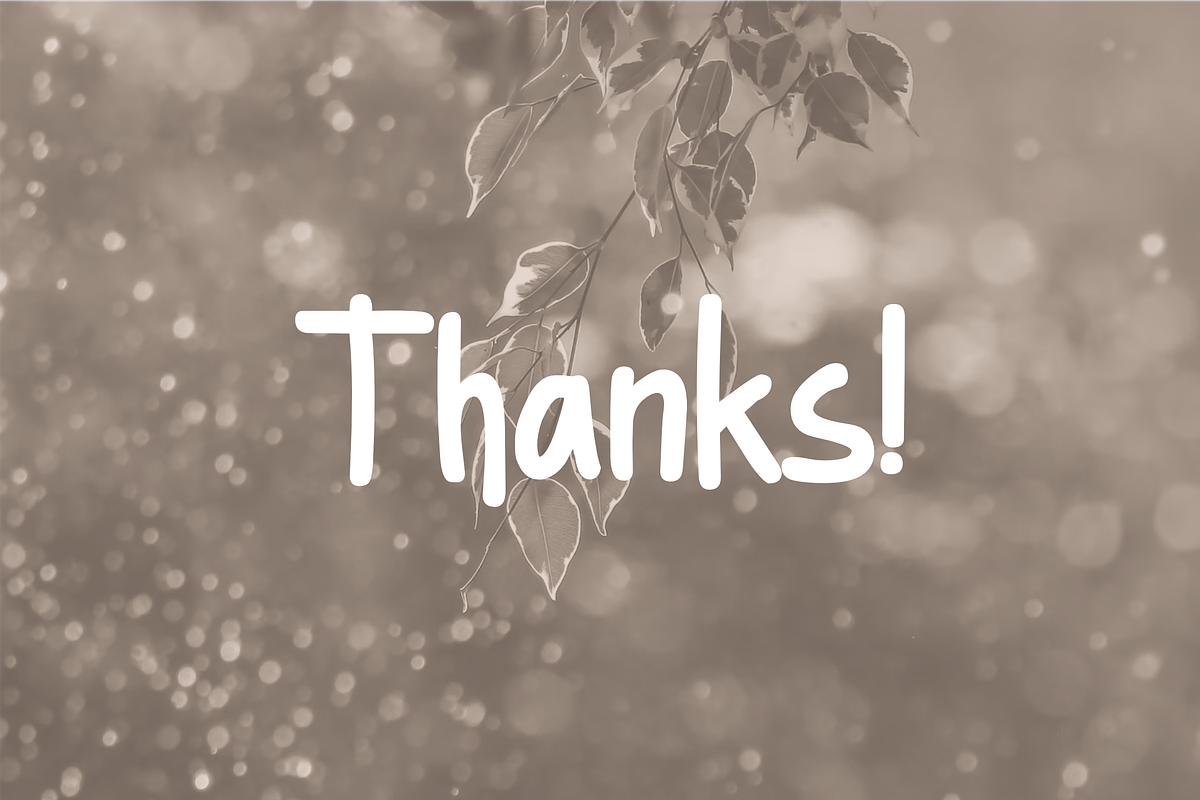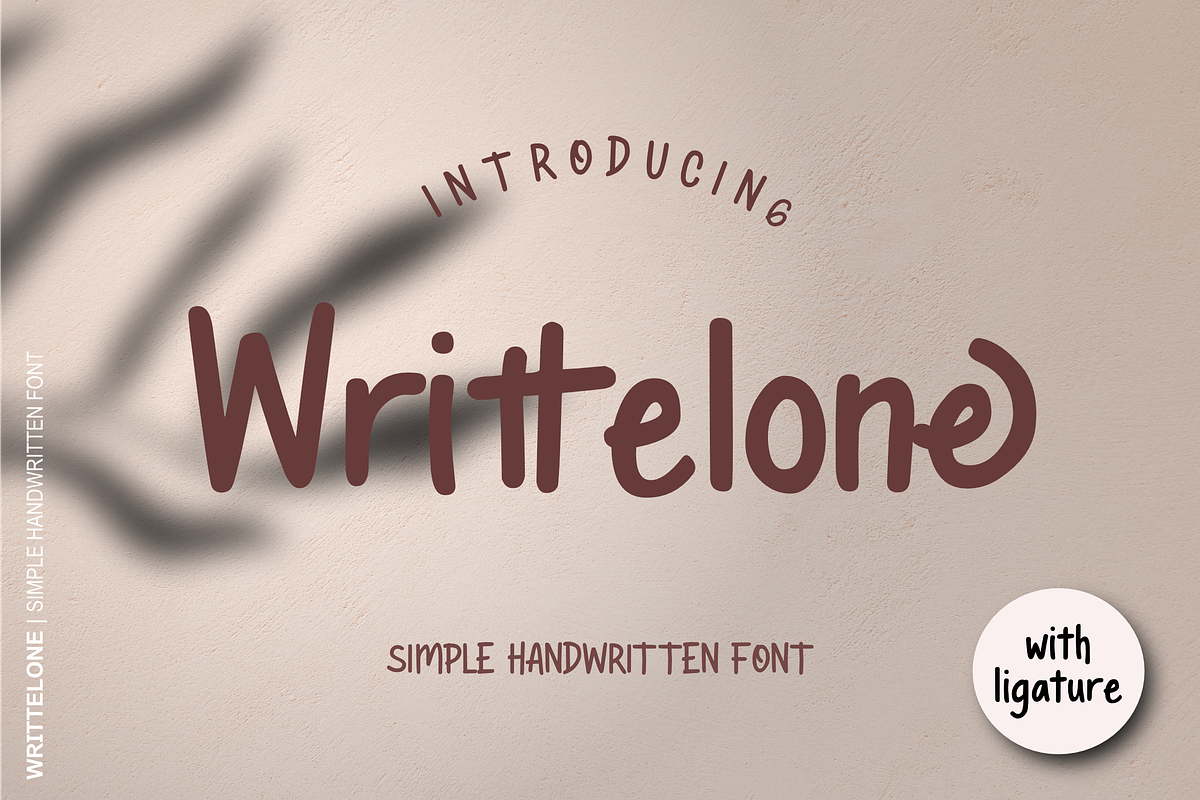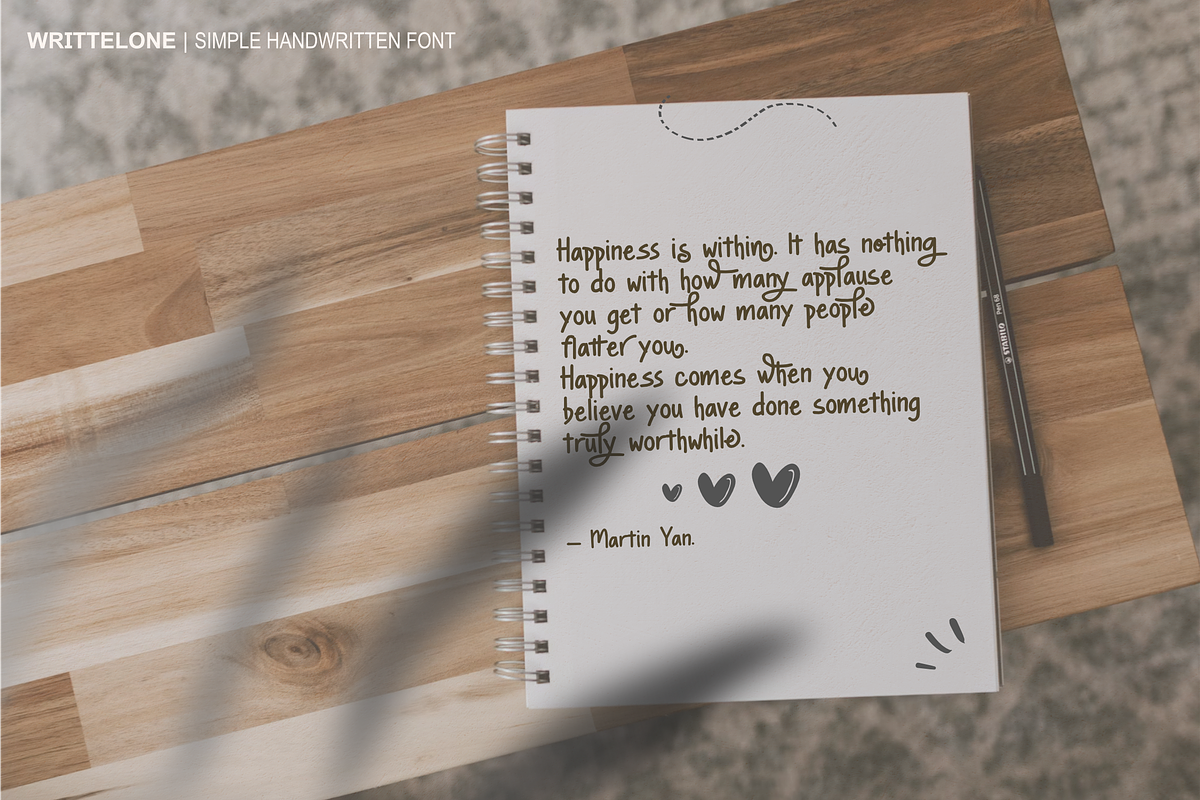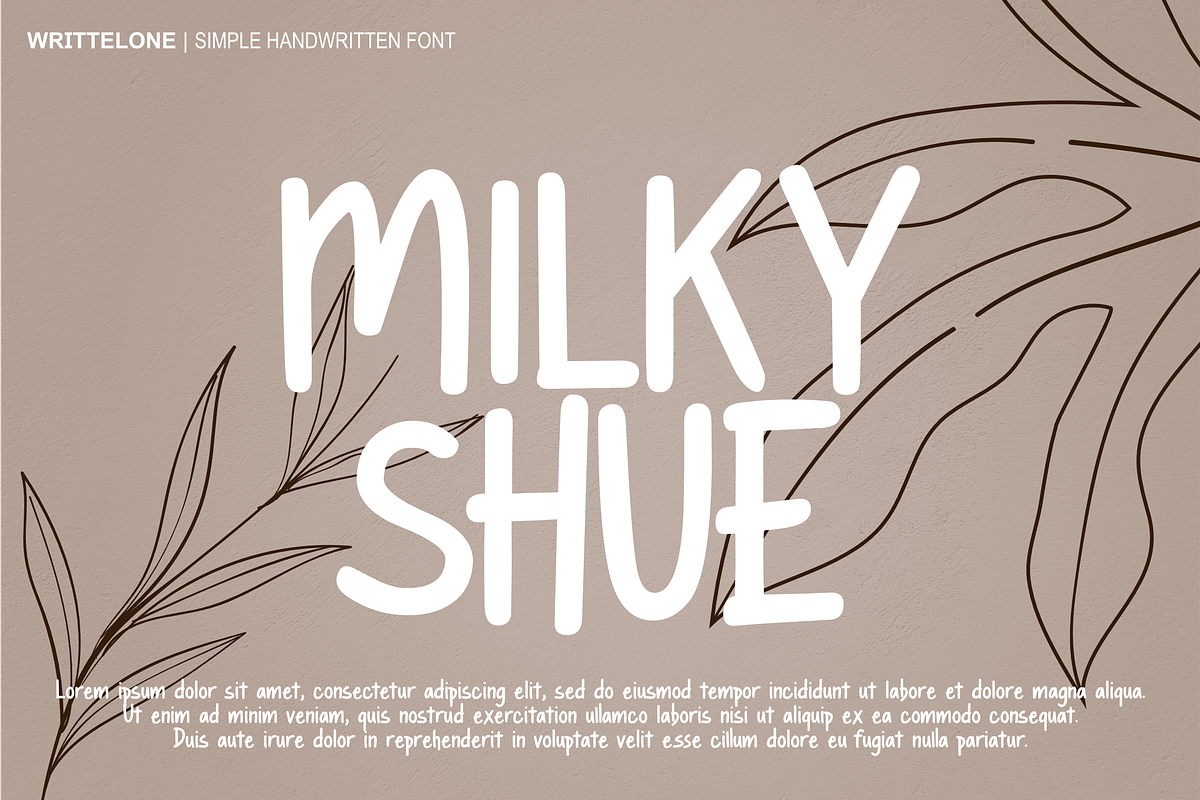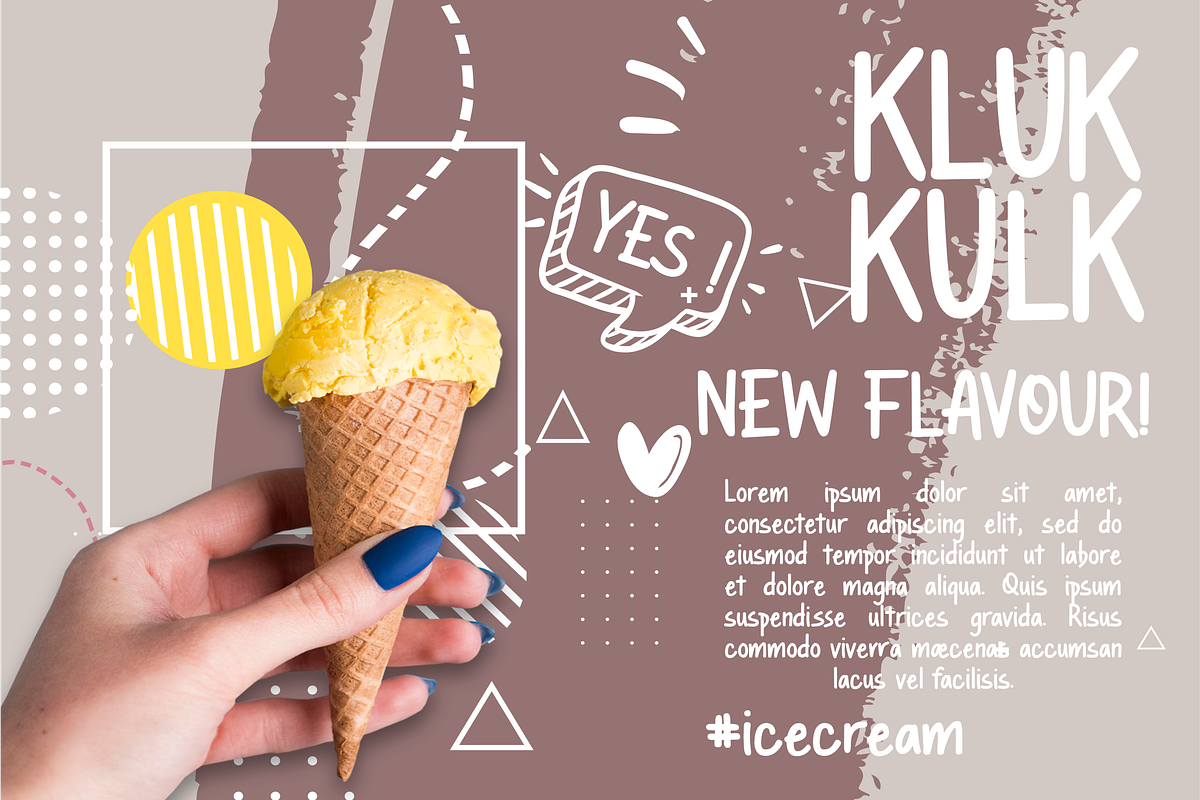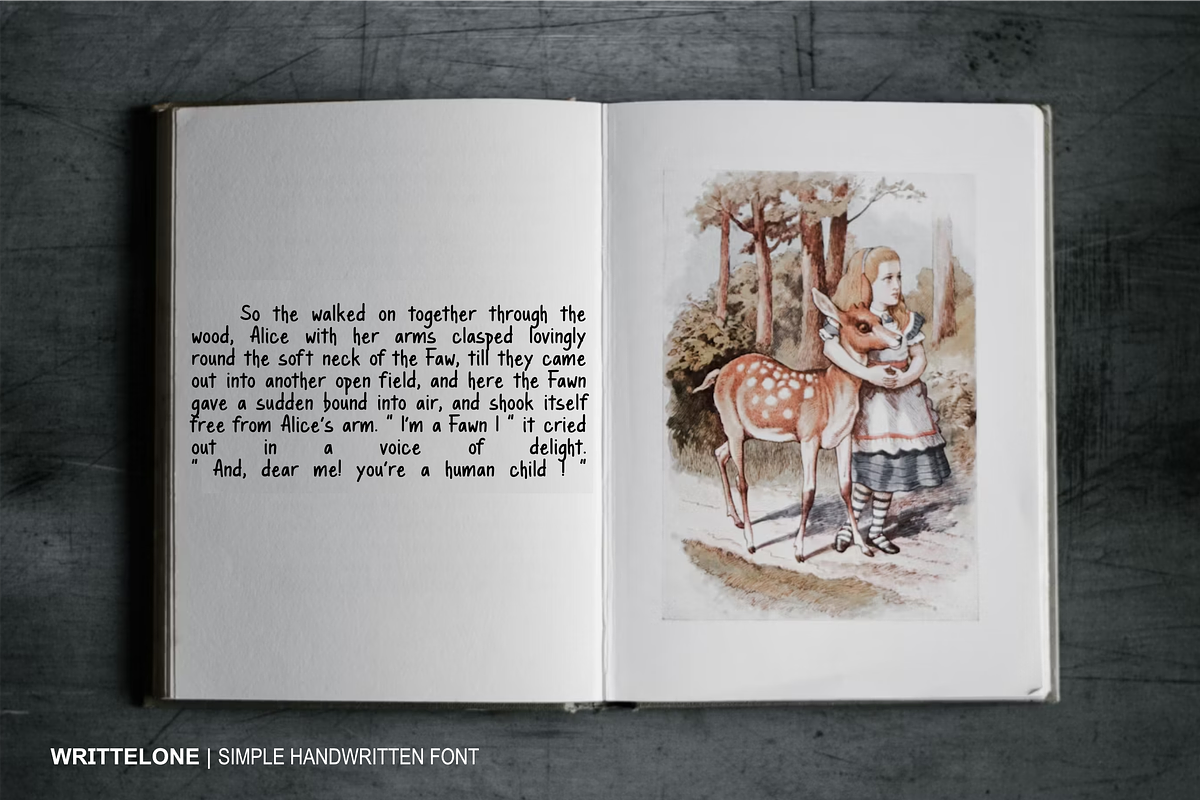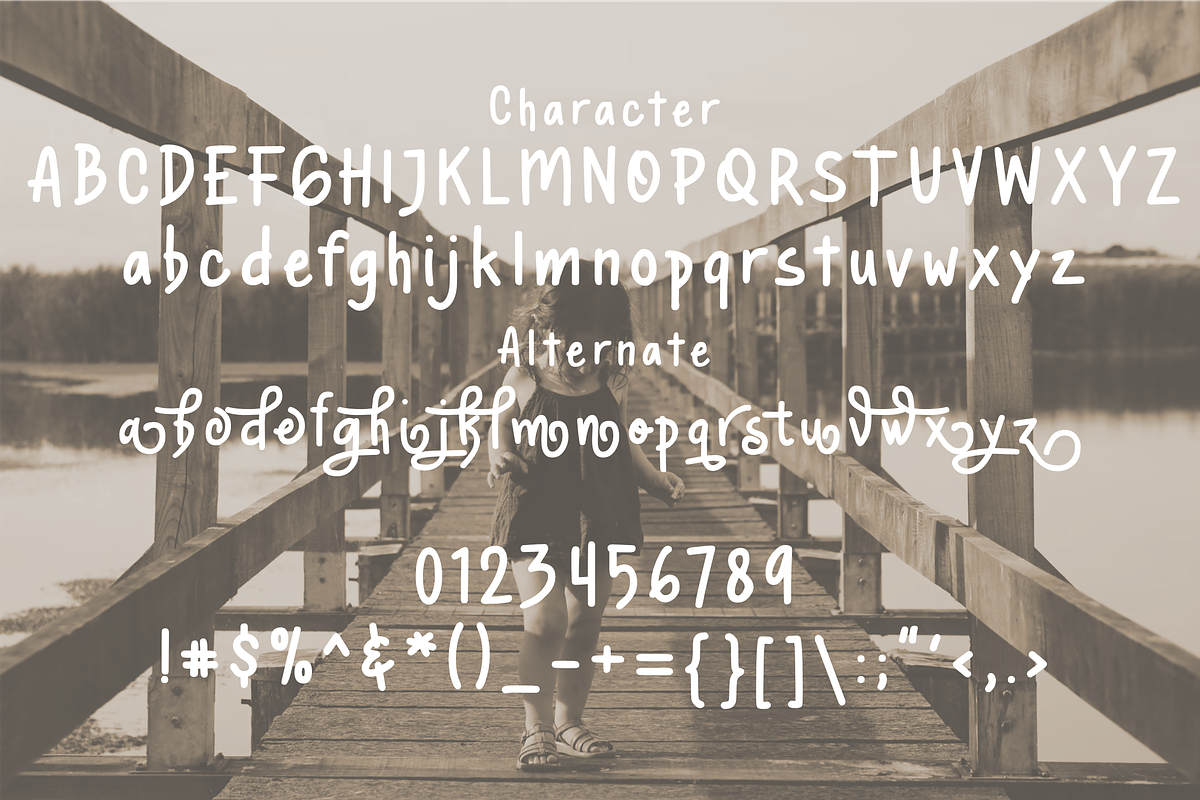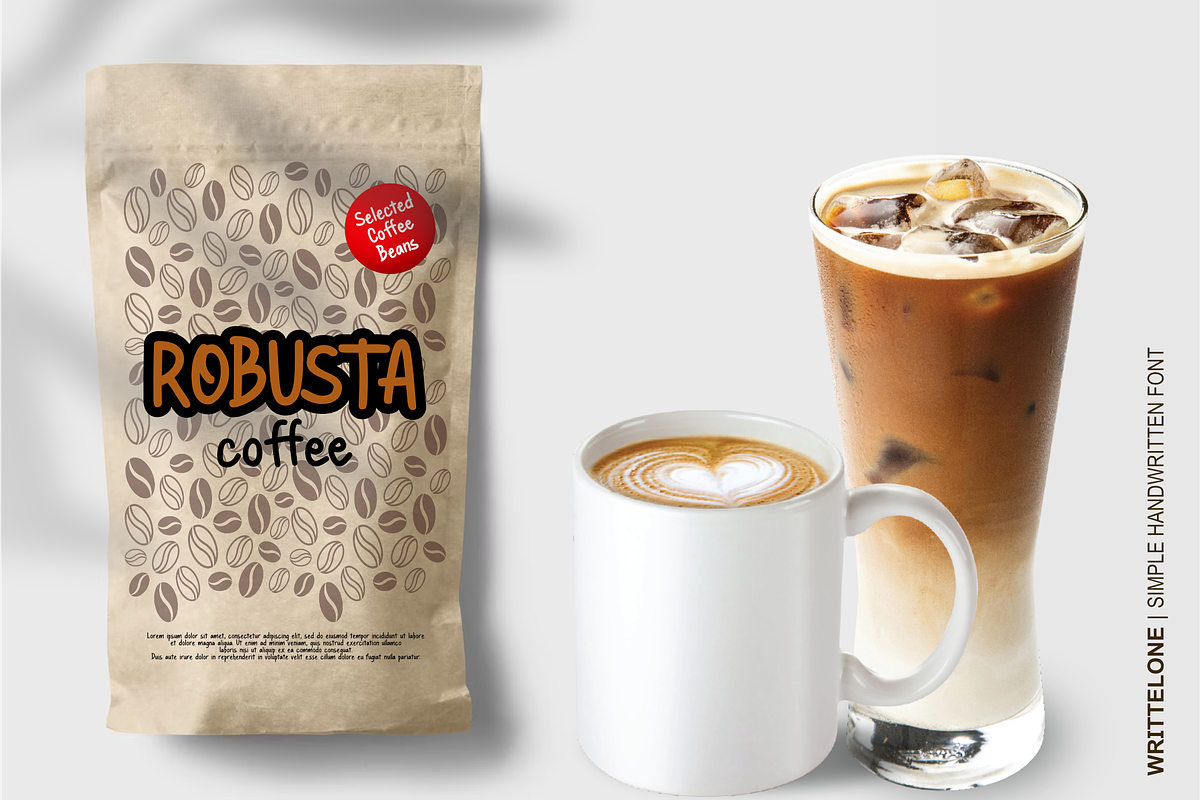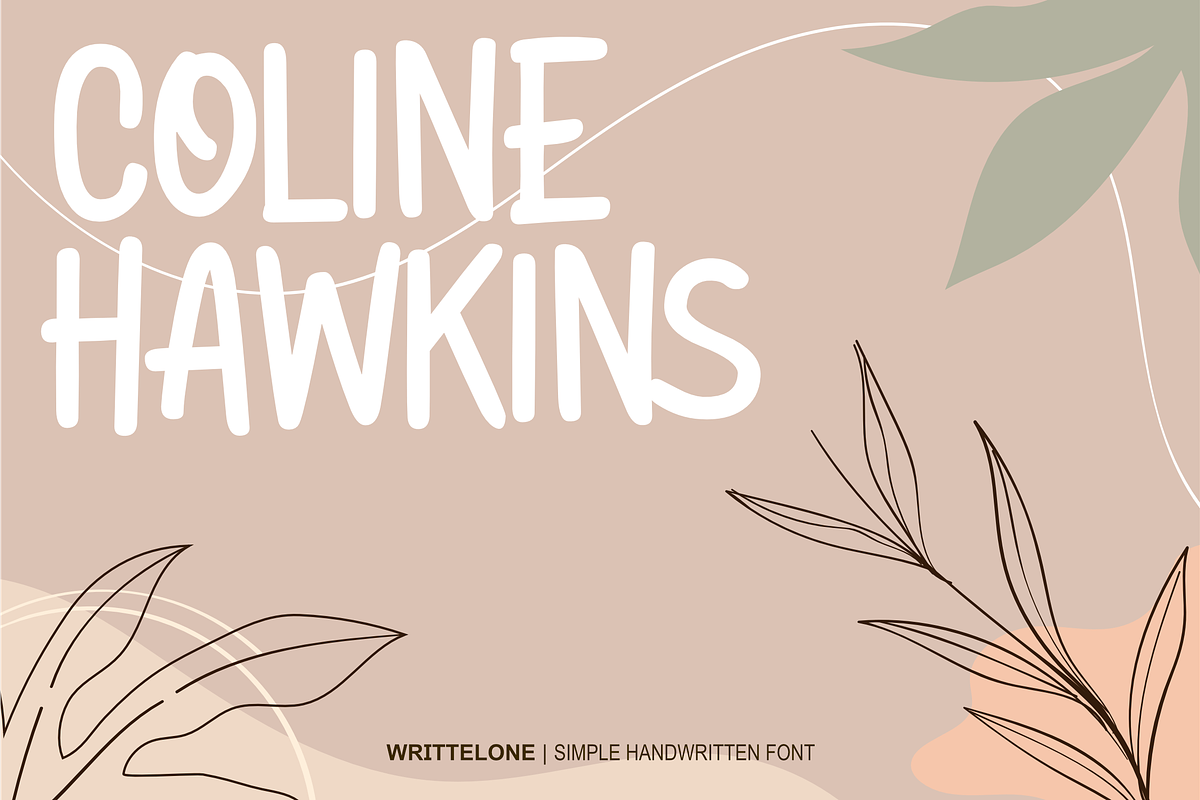
Writtelone - Simple Handwritten Font
Introducing Writtelone, a charming and versatile handwritten font Its balance of simplicity and character makes it an excellent tool for any creative endeavor. With its simple yet distinctive character. Whether you’re designing a brand identity, crafting inspiring quotes, creating captivating book covers, or developing eye-catching packaging, Writtelone is a perfect choice for all your creative needs. Explore our range of Elegant Handwritten Fonts, including Handwritten Font and Playful Script Fonts extensive lowercase alternate and multilingual support, ensuring your designs can reach a global audience with ease, find the perfect fit for your next project!